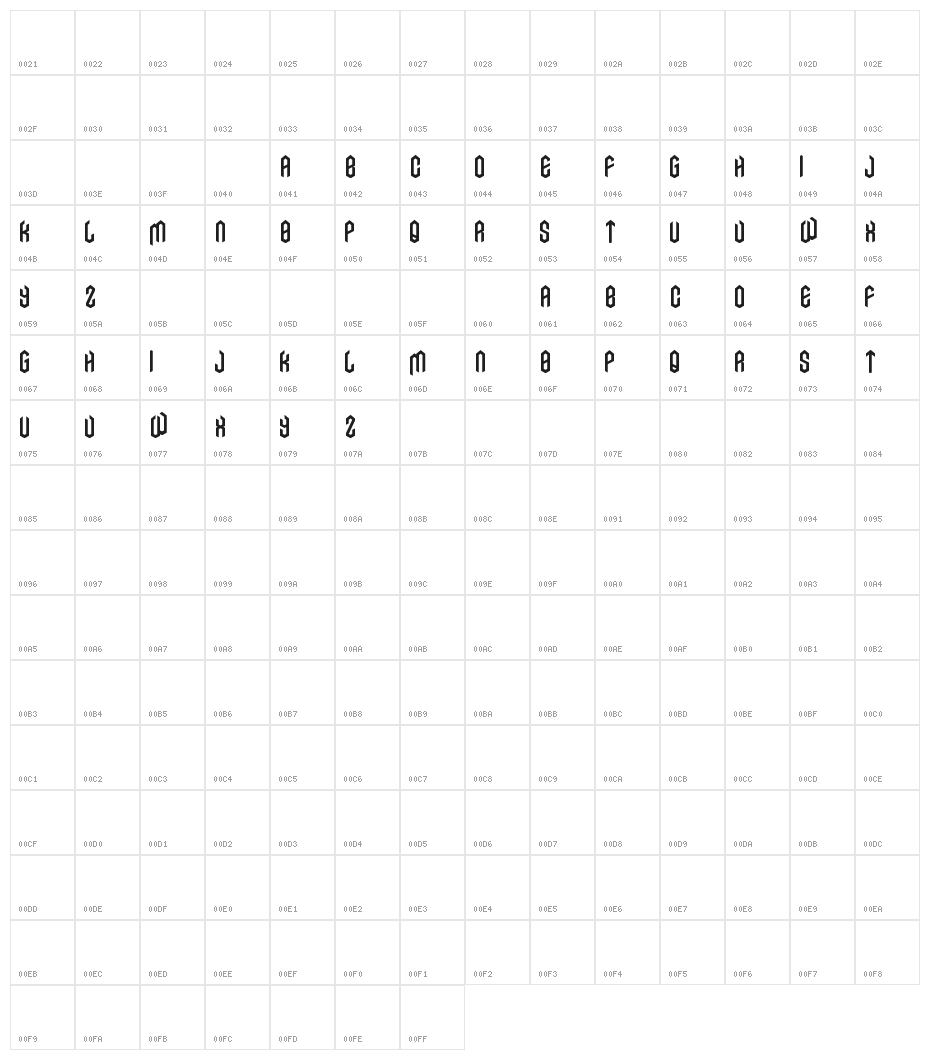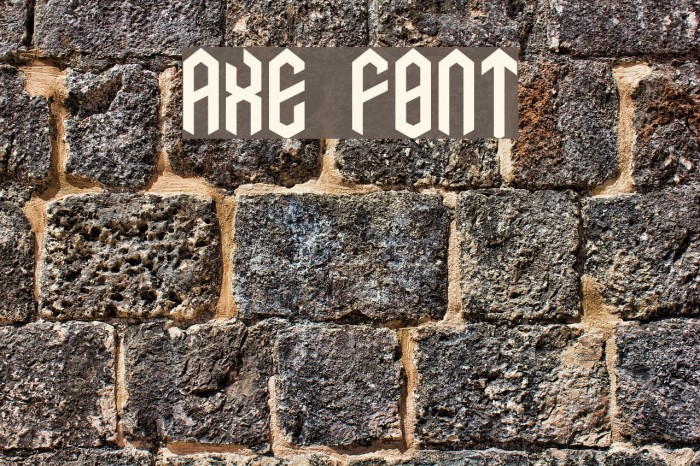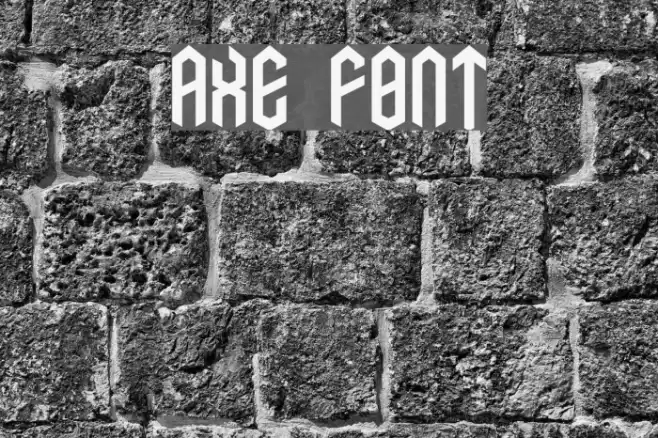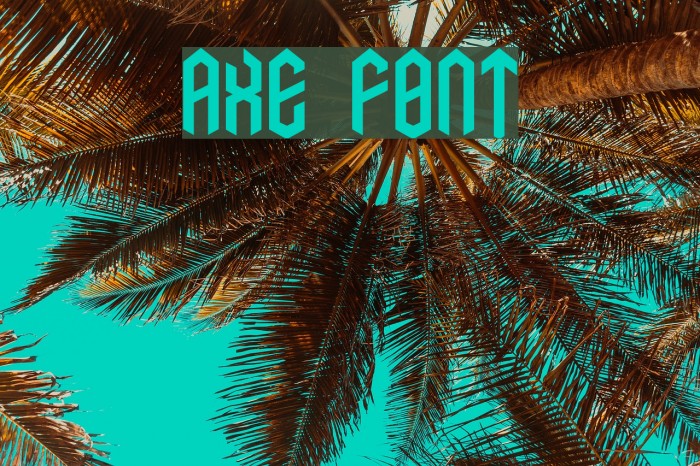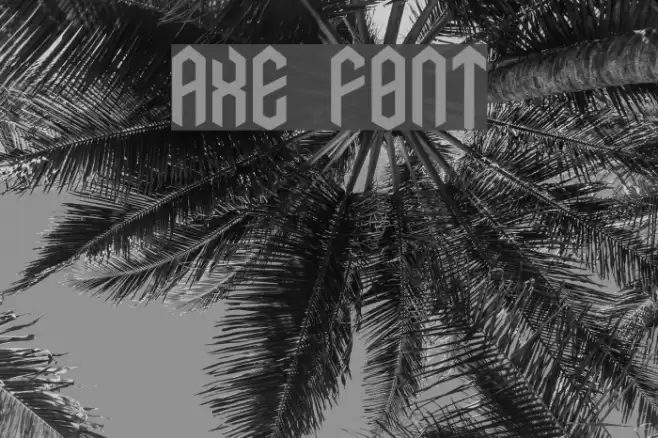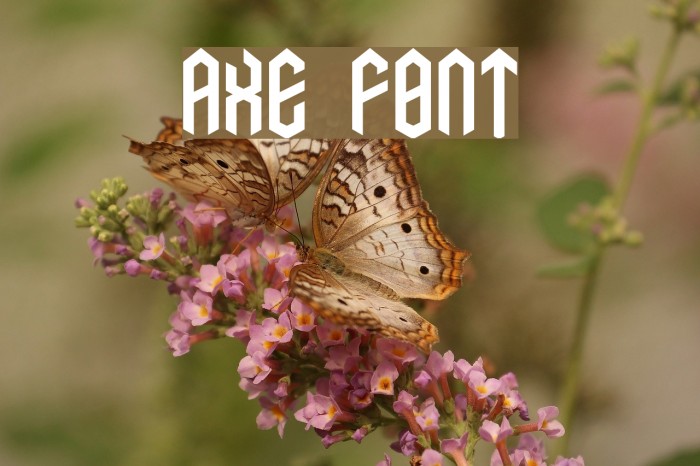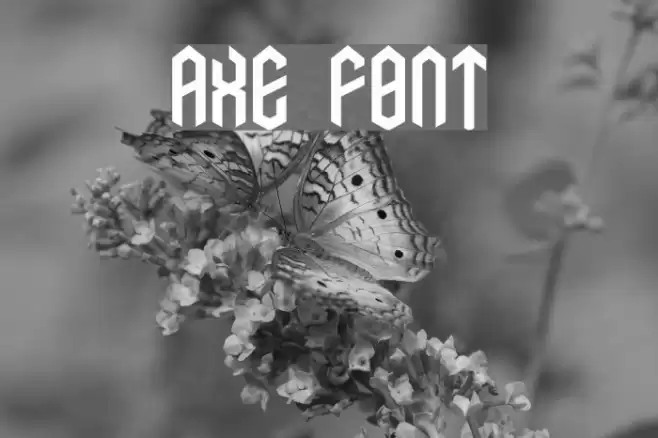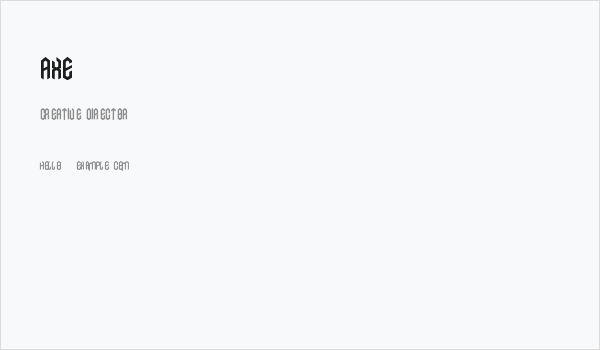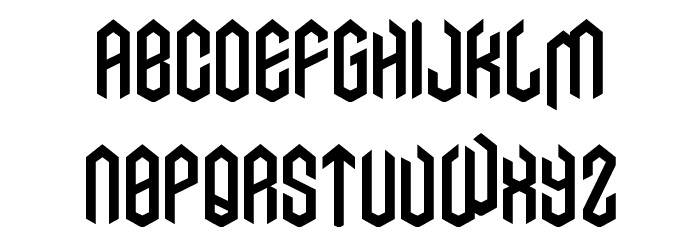
AXE Font
AXE Description
This font features a bold, geometric design with sharp angles and a strong presence. The uppercase letters are characterized by their uniform height and consistent stroke width, creating a cohesive and impactful look. The design is reminiscent of traditional Gothic or Blackletter styles but with a modern twist, making it suitable for contemporary applications. The angular forms and solid structure convey a sense of strength and authority, making it ideal for headlines or branding that requires a commanding visual impact.
| Proposed Projects | Ideal for branding, logos, posters, and any design requiring a strong, authoritative presence. |